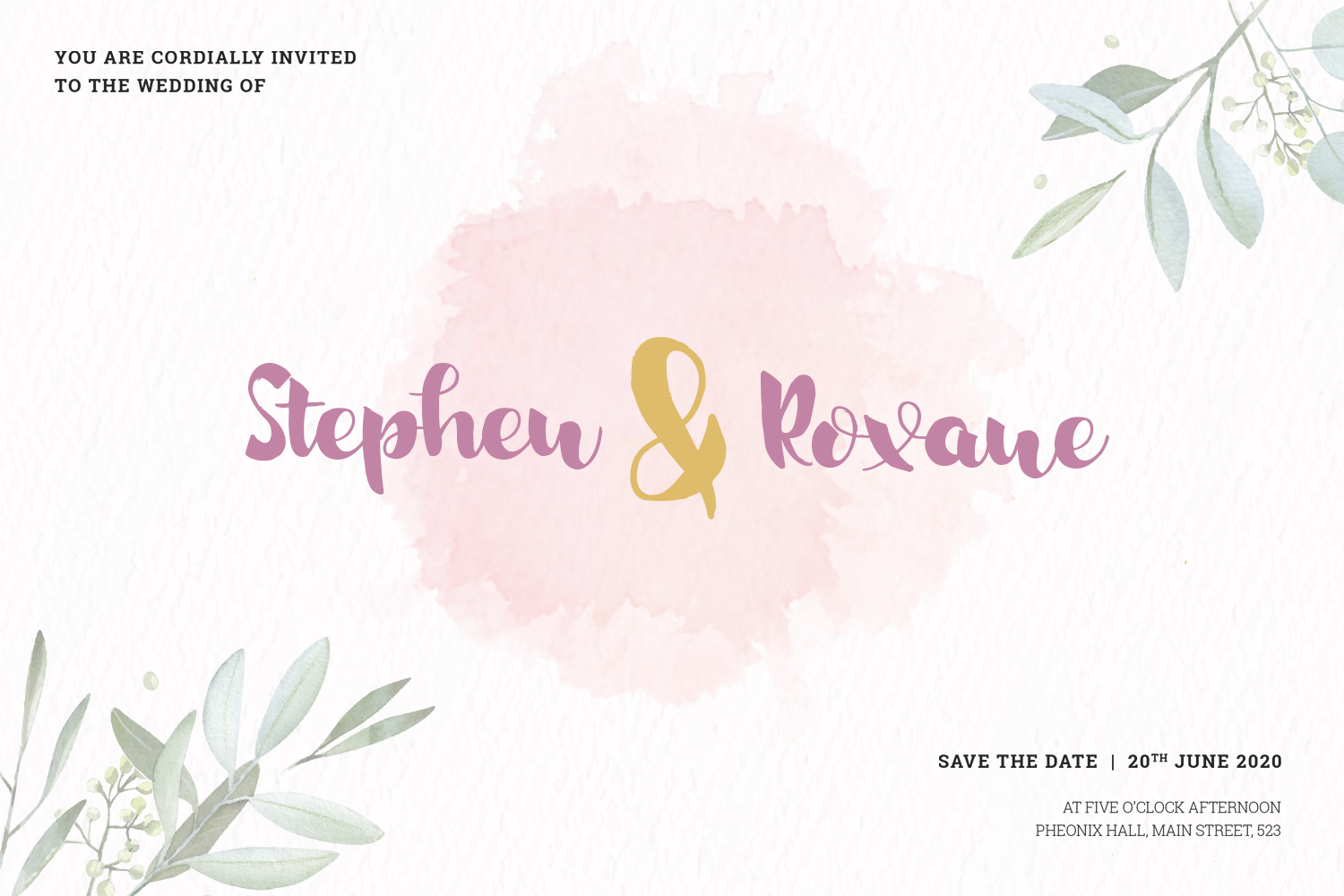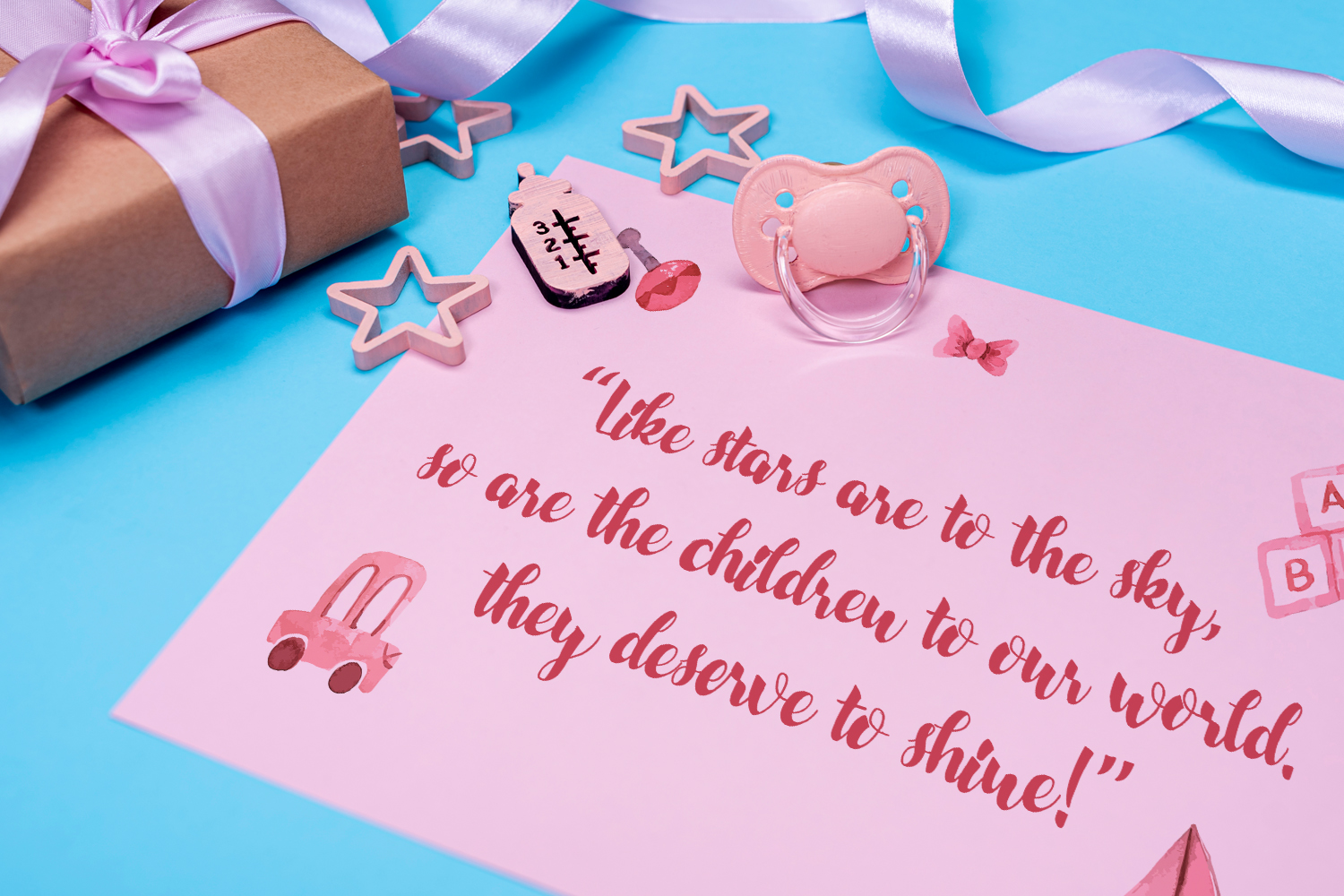
Ralynda is a delicate and elegant handwritten font. Its distinct and well rounded letters make this font a masterpiece. Fall in love with its incredibly versatile style and use it to create spectacular designs!
Features:
- Uppercase & Lowercase
- Numerals
- Punctuations (OpenType Standard)
- Accents (Multilingual Characters)
- Ligatures and Alternative Style Stylistic Set